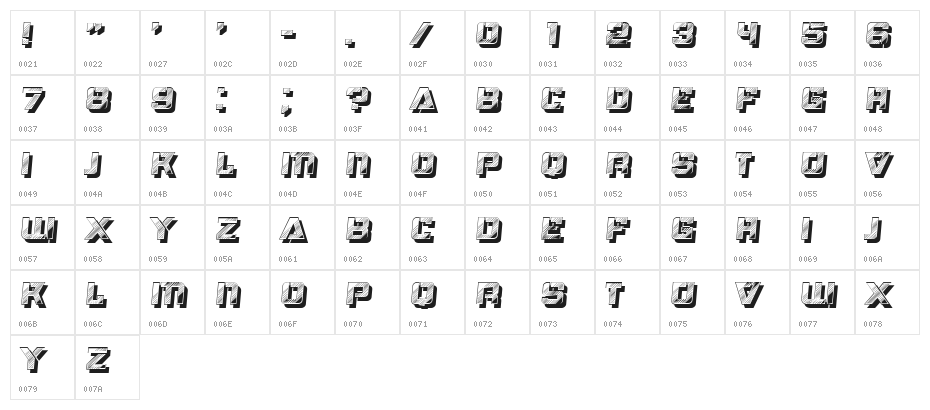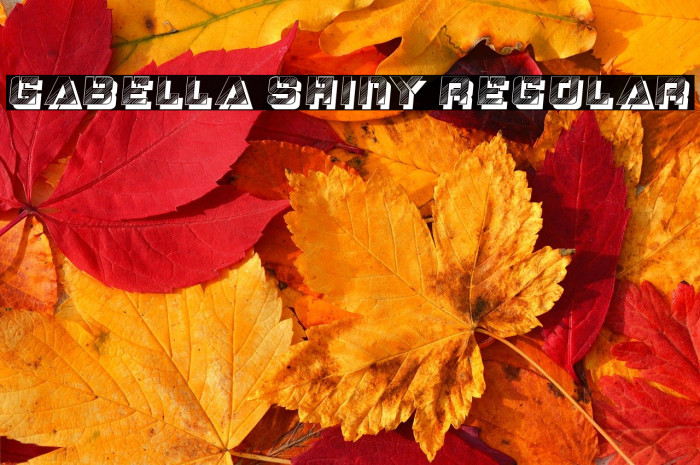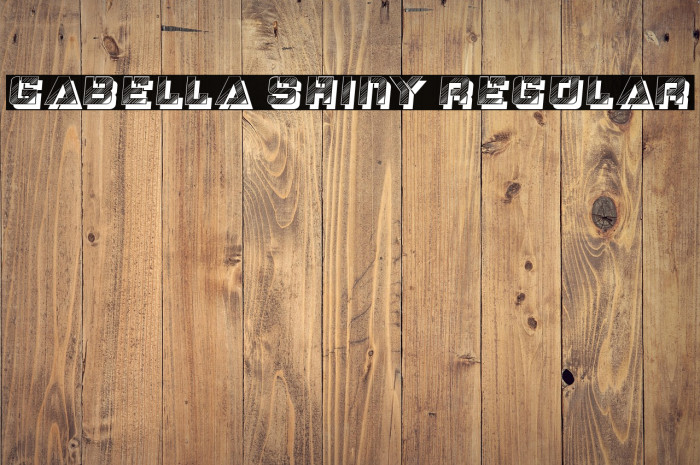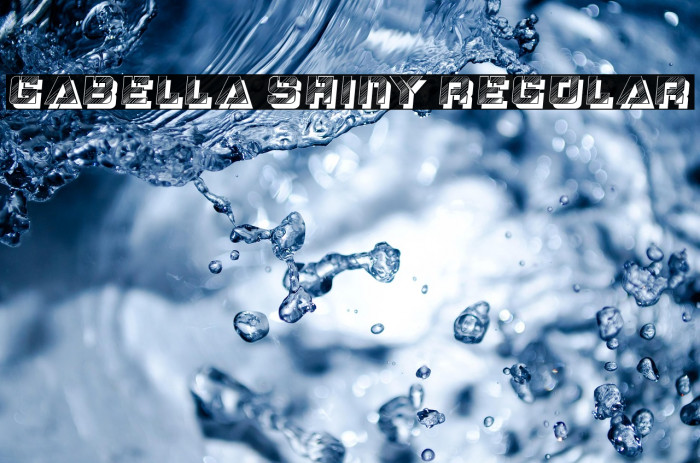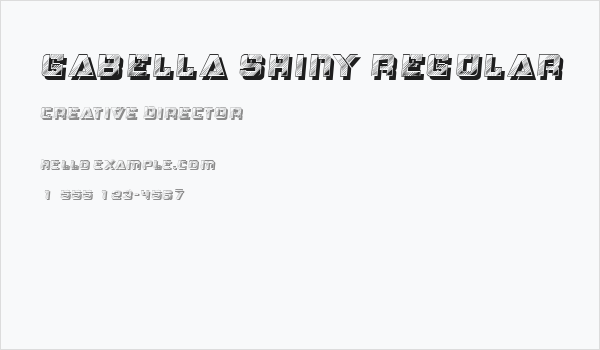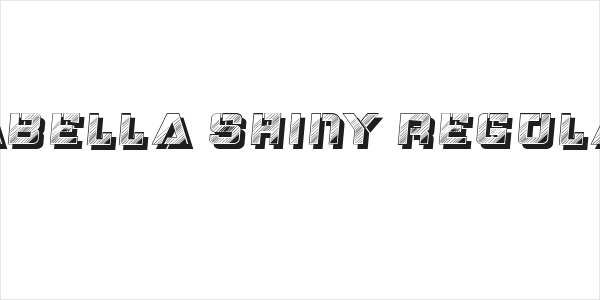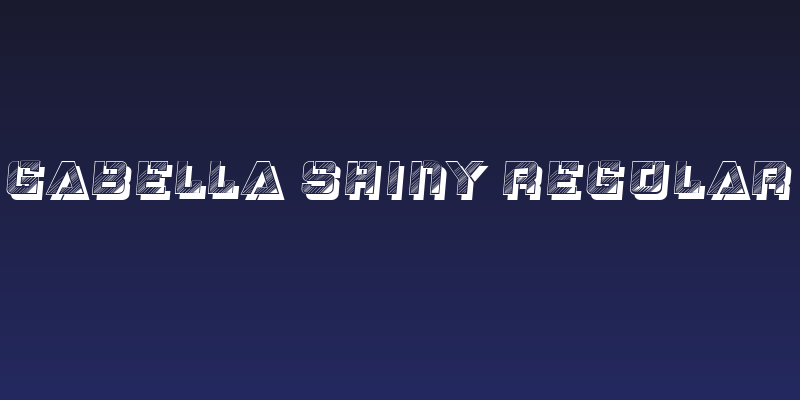
Gabella Shiny Regular Font
Gabella Shiny Regular Description
This font features a bold, three-dimensional design with a shiny, metallic appearance. The letters are uppercase and have a distinct shadow effect that gives them depth and a sense of movement. The strokes are thick and consistent, with diagonal lines running through each character, adding a textured look. The overall style is modern and eye-catching, making it suitable for attention-grabbing headlines or titles. The numbers and special characters follow the same design principles, ensuring a cohesive look across all elements.
| Proposed Projects | Ideal for use in posters, logos, video game titles, and any project requiring a bold, modern aesthetic. |